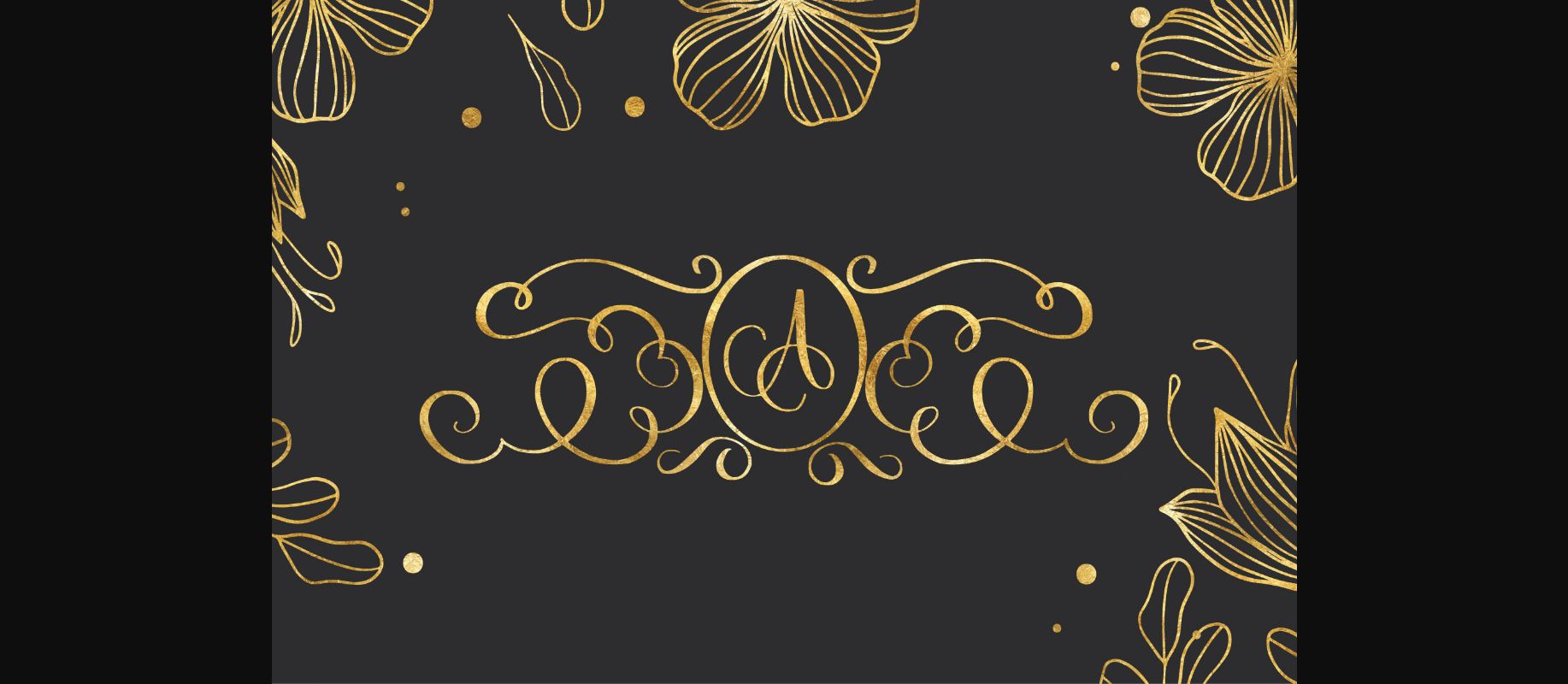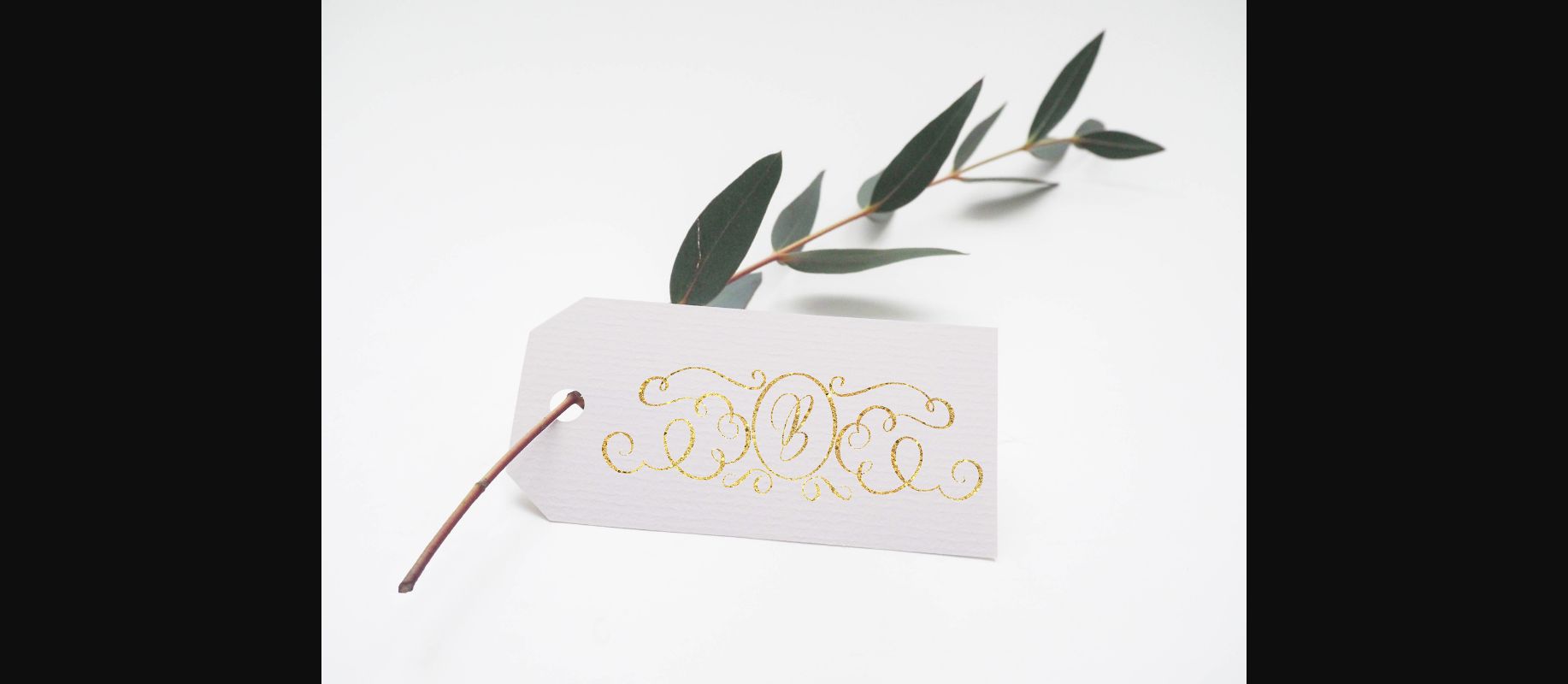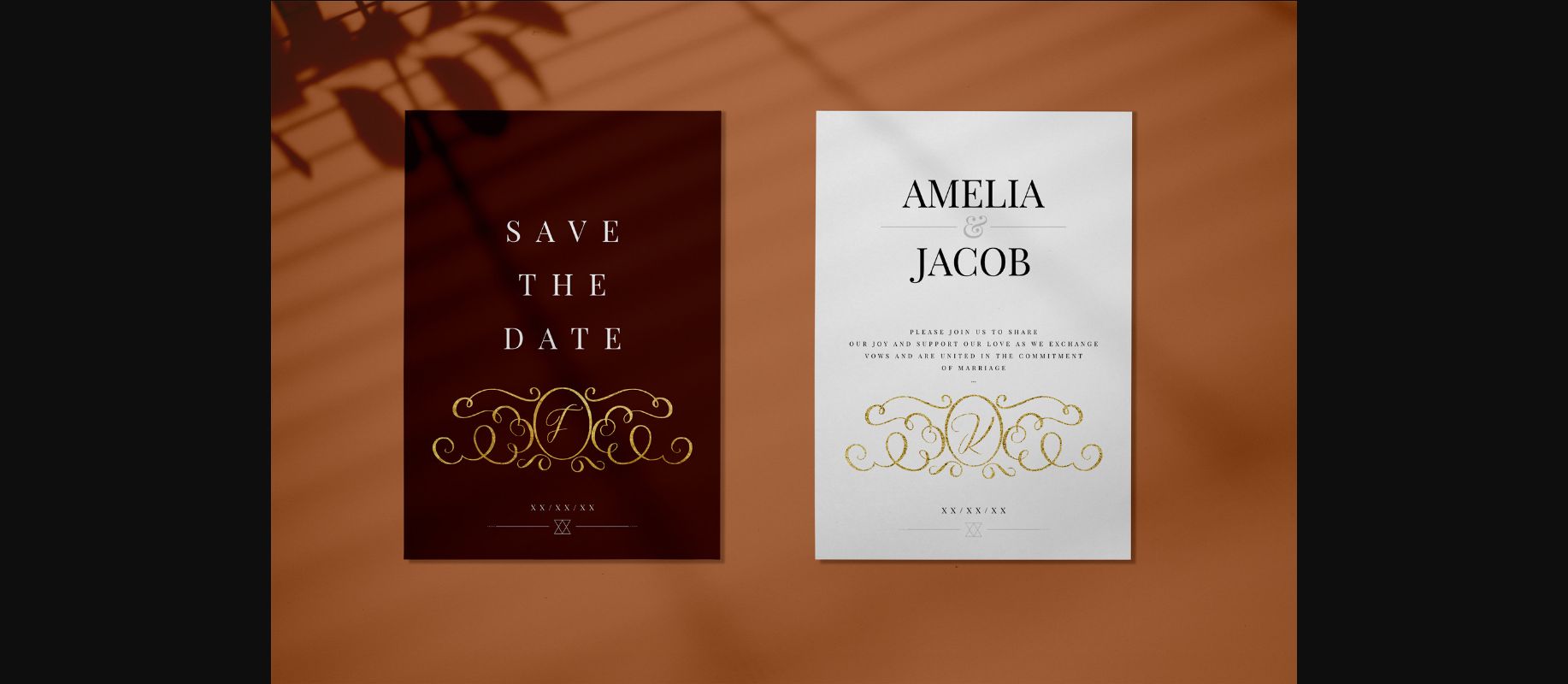
Decorative Monogram Font
About Decorative Monogram Font
Decorative Monogram is a dainty and highly detailed decorative font. Add this romantic and lovely looking font to each of your love letters, wedding invitations or favorite design ideas, and you will be astounded by the outcome.